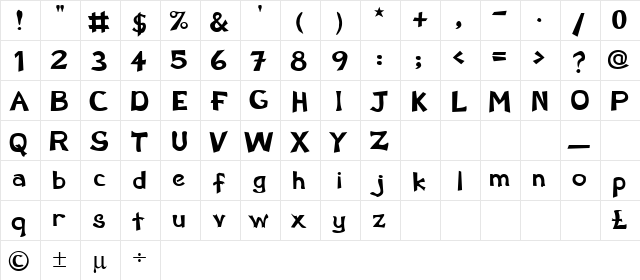
Schwarz Regular
Design Context for Schwarz Typeface
Schwarz is a composed and adaptable typeface that performs quietly and consistently across a wide range of design contexts.